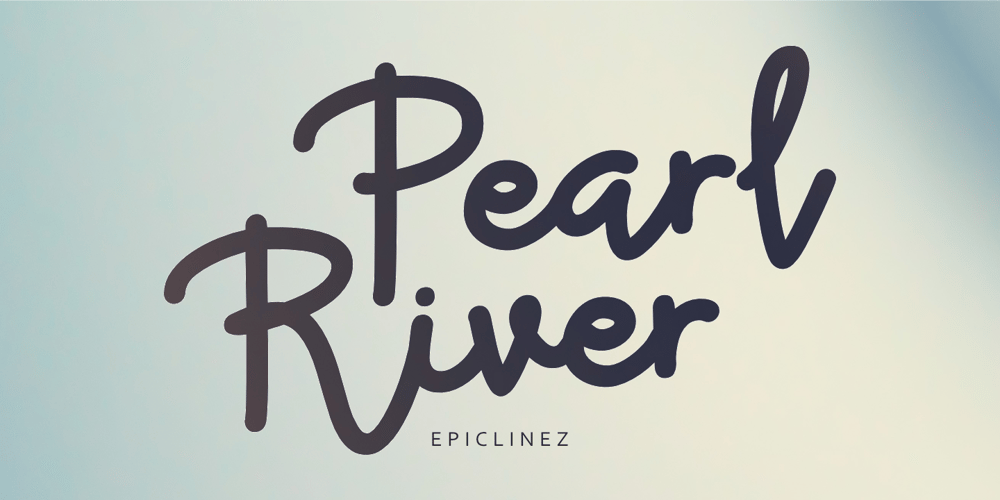
Pearl River Font Family was designed by Aldy Sidik and published by Epiclinez. Pearl River contains 1 styles and family package options. Pearl River is a bold and elegant script font. Whether you’re designing a logo, or poster or working on crafting projects, Pearl River can take your creativity to a new height.